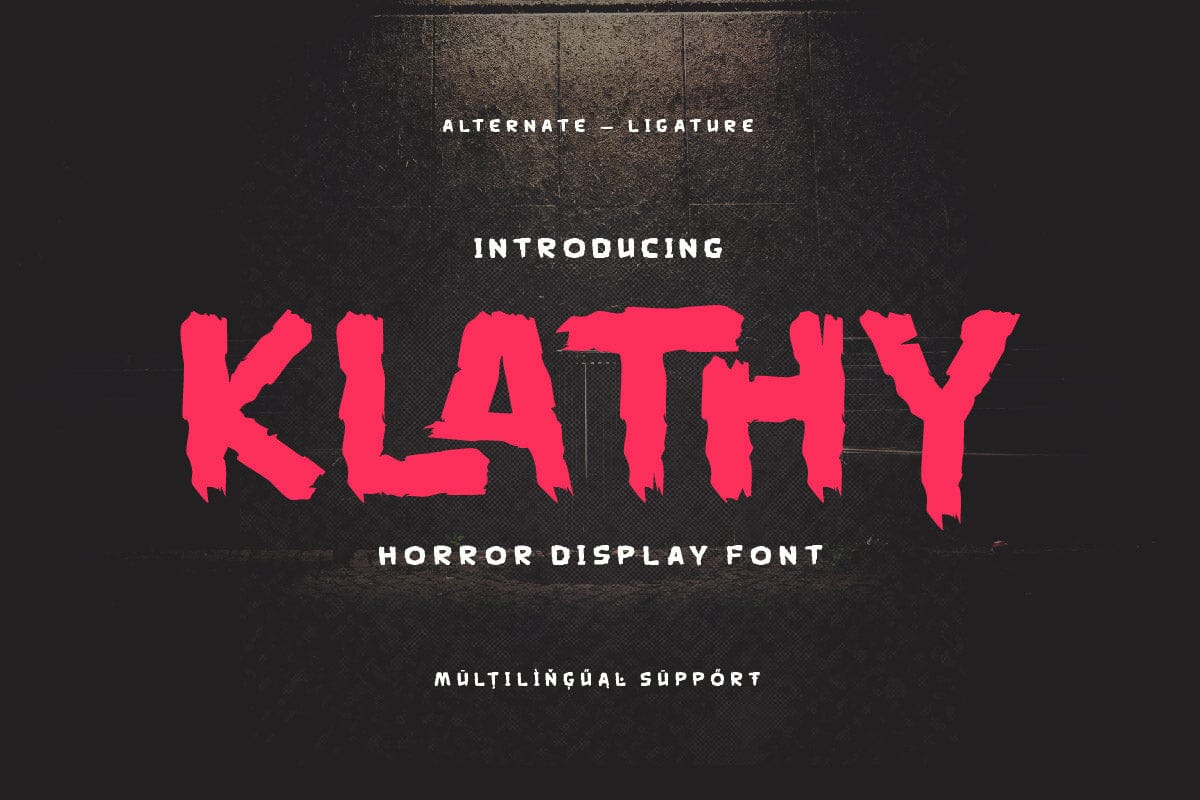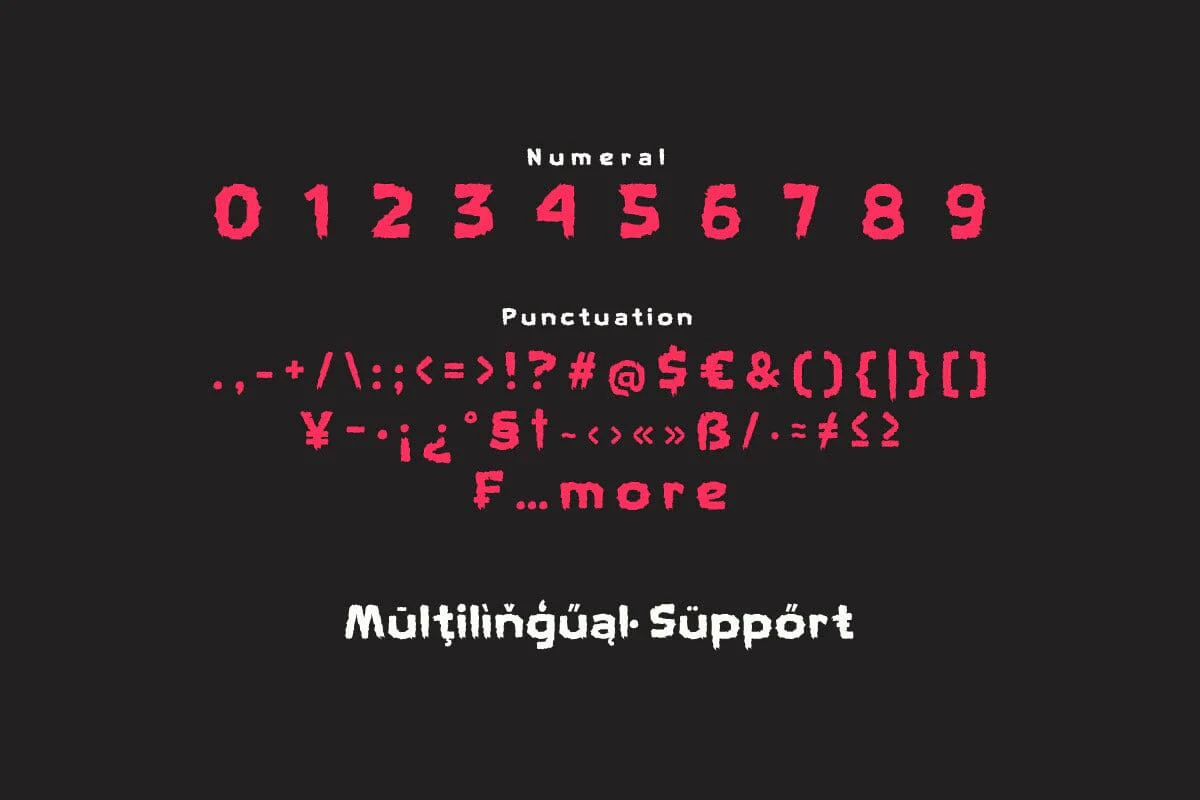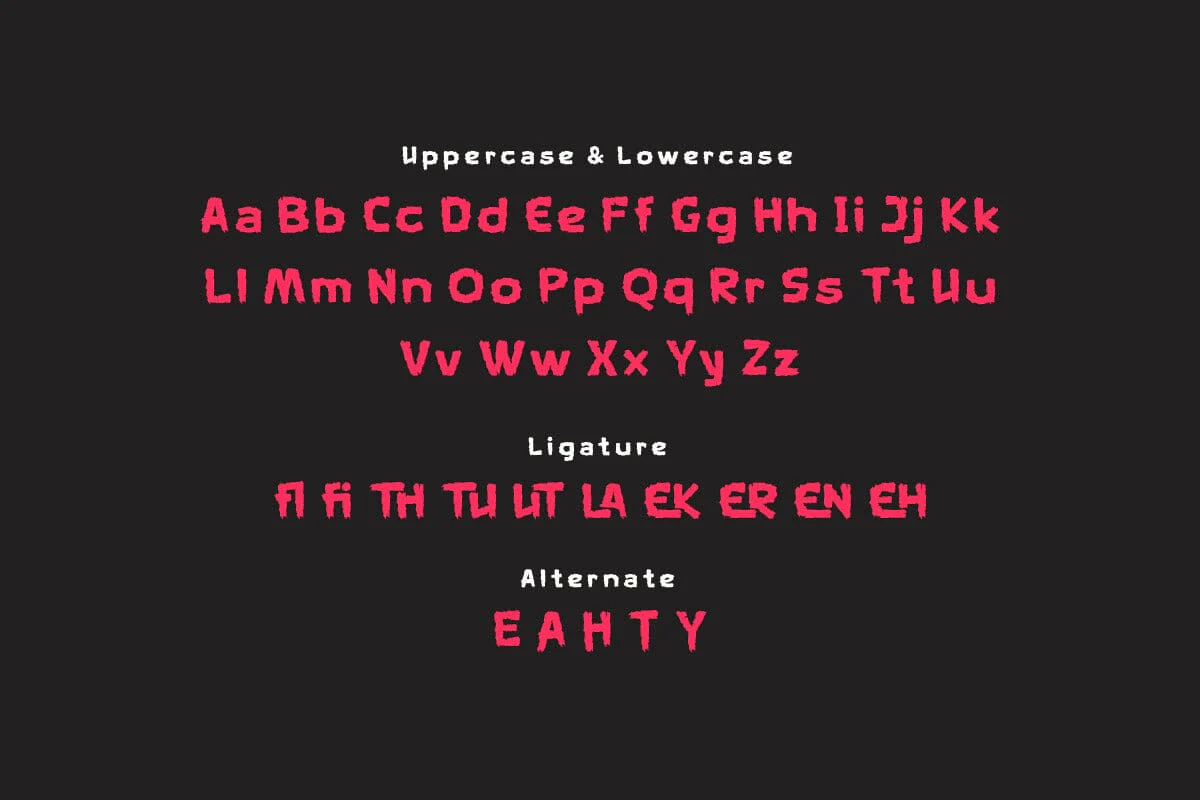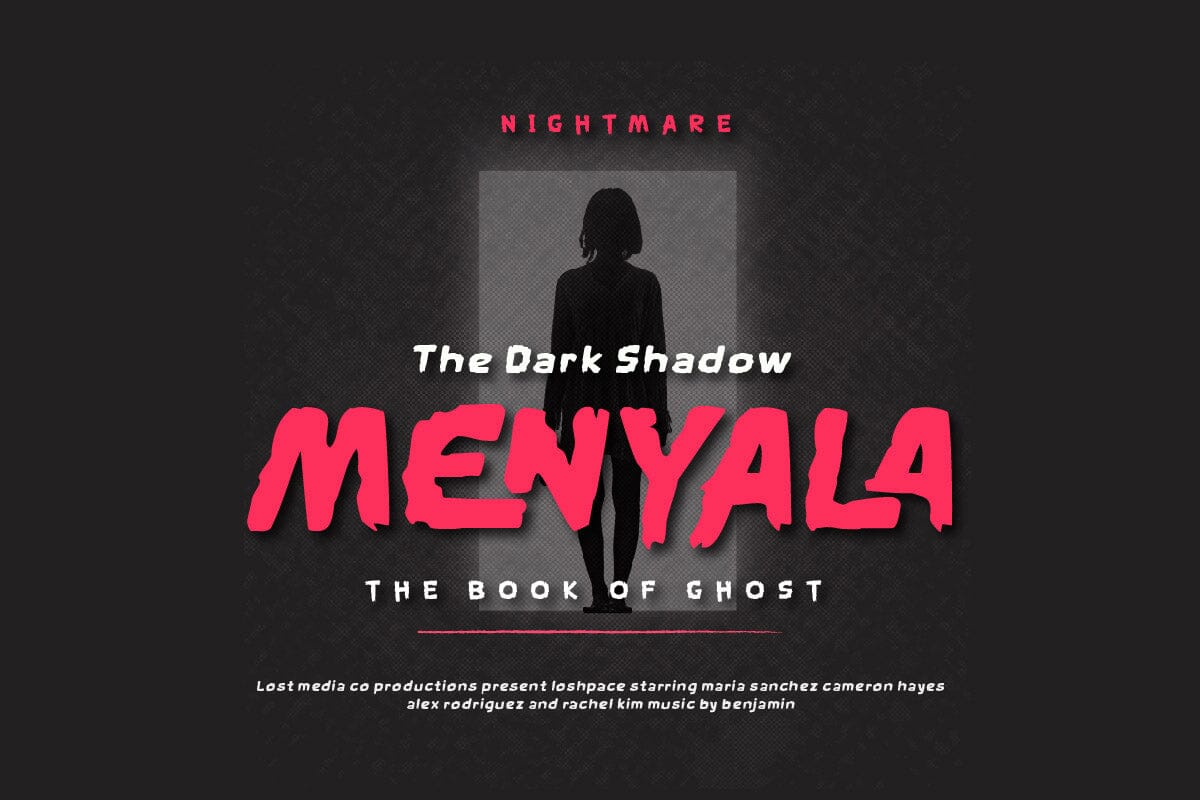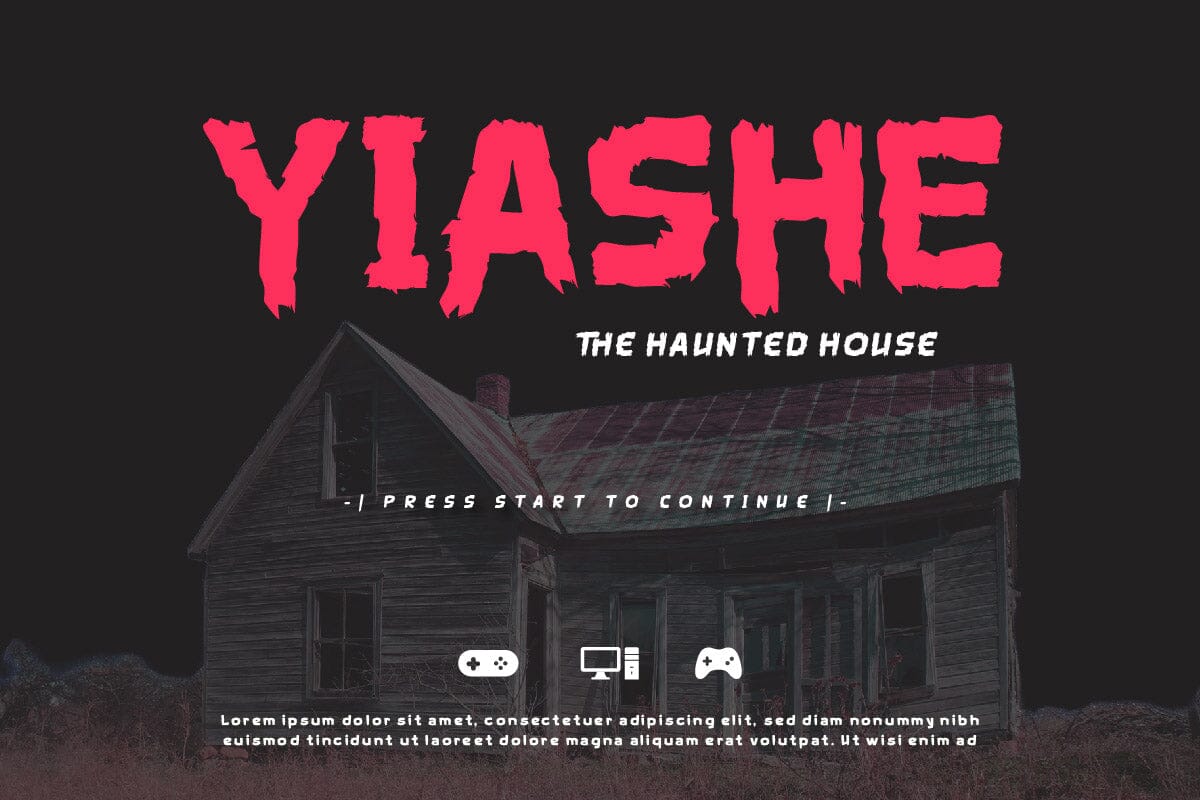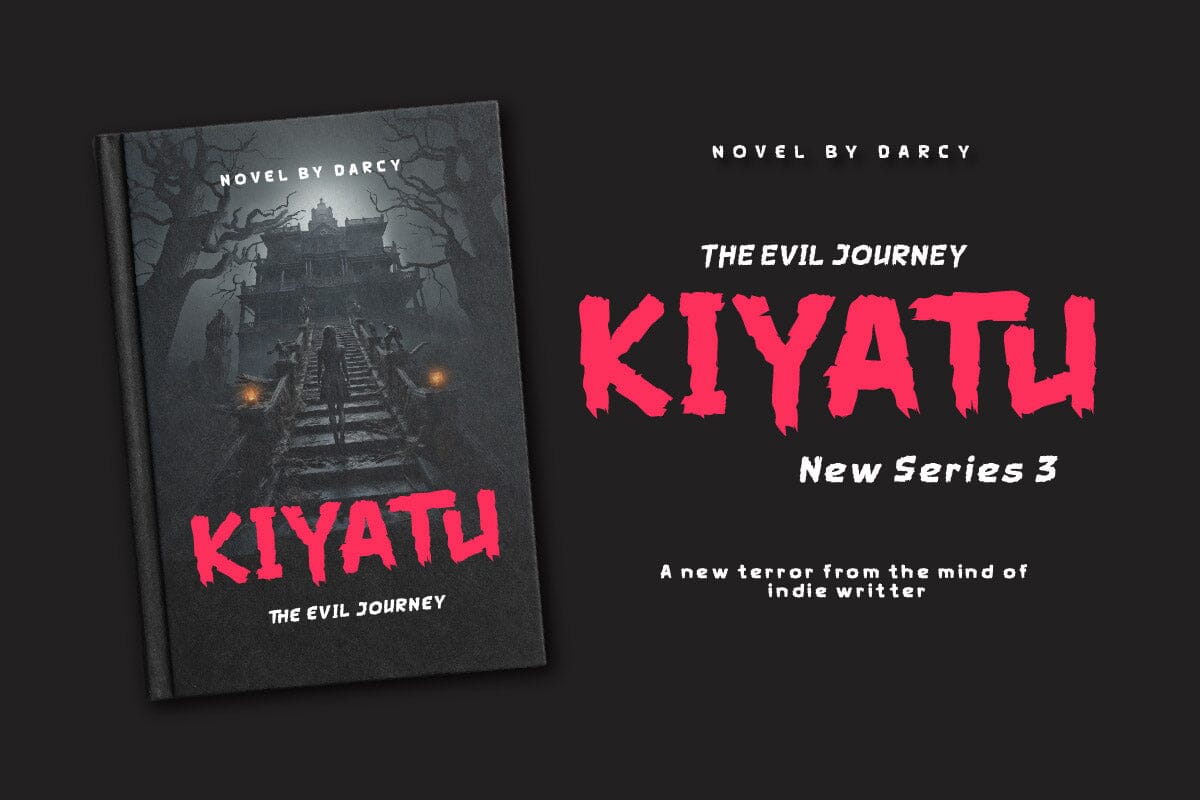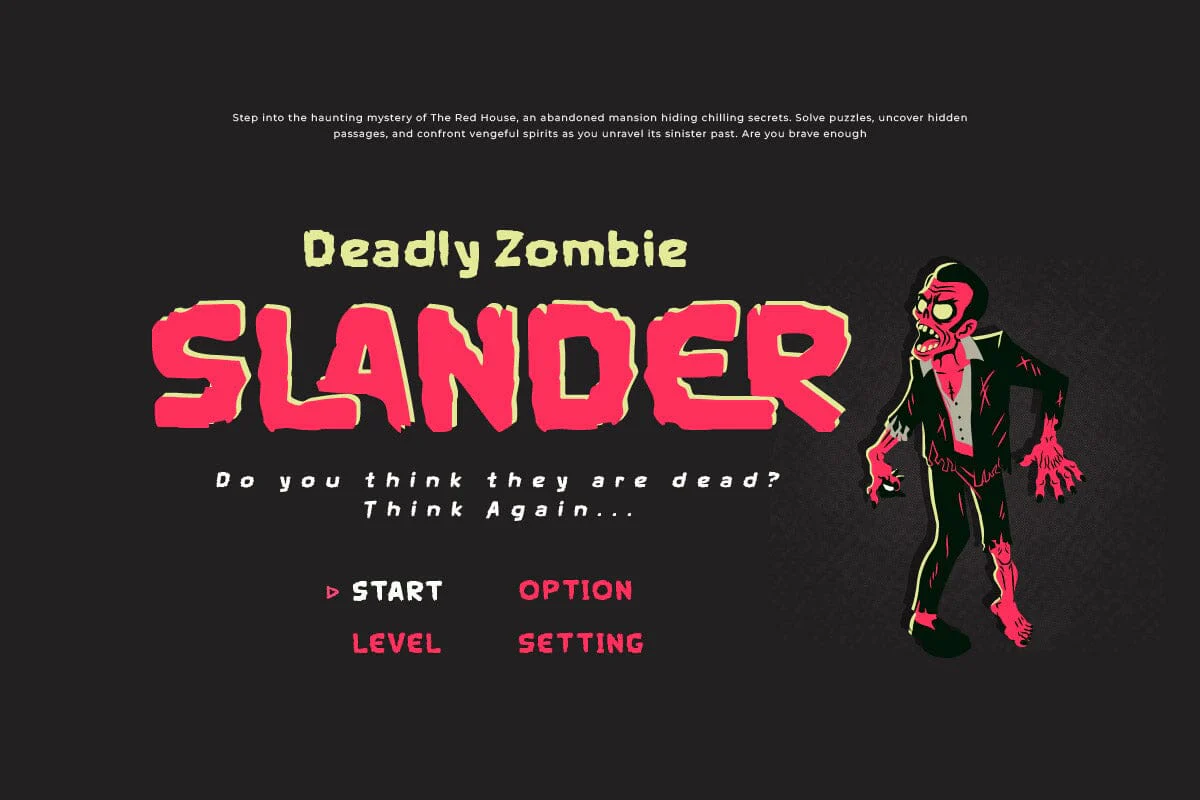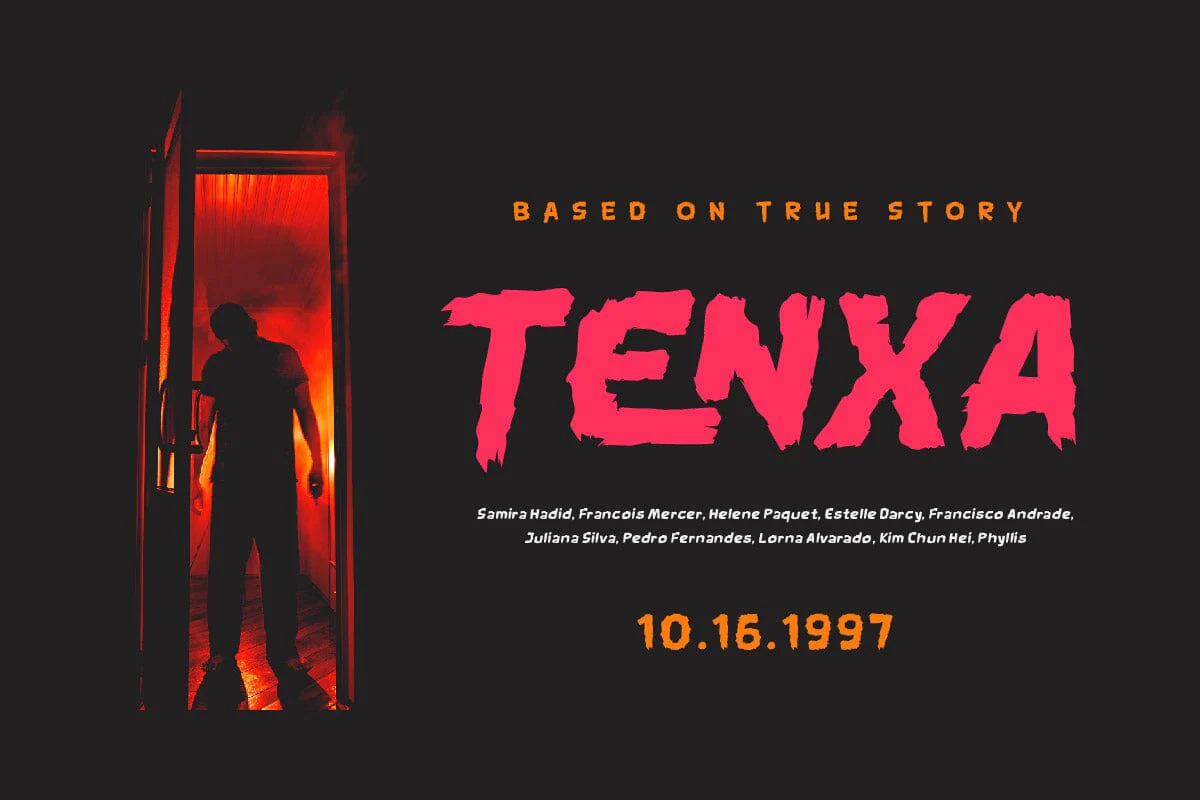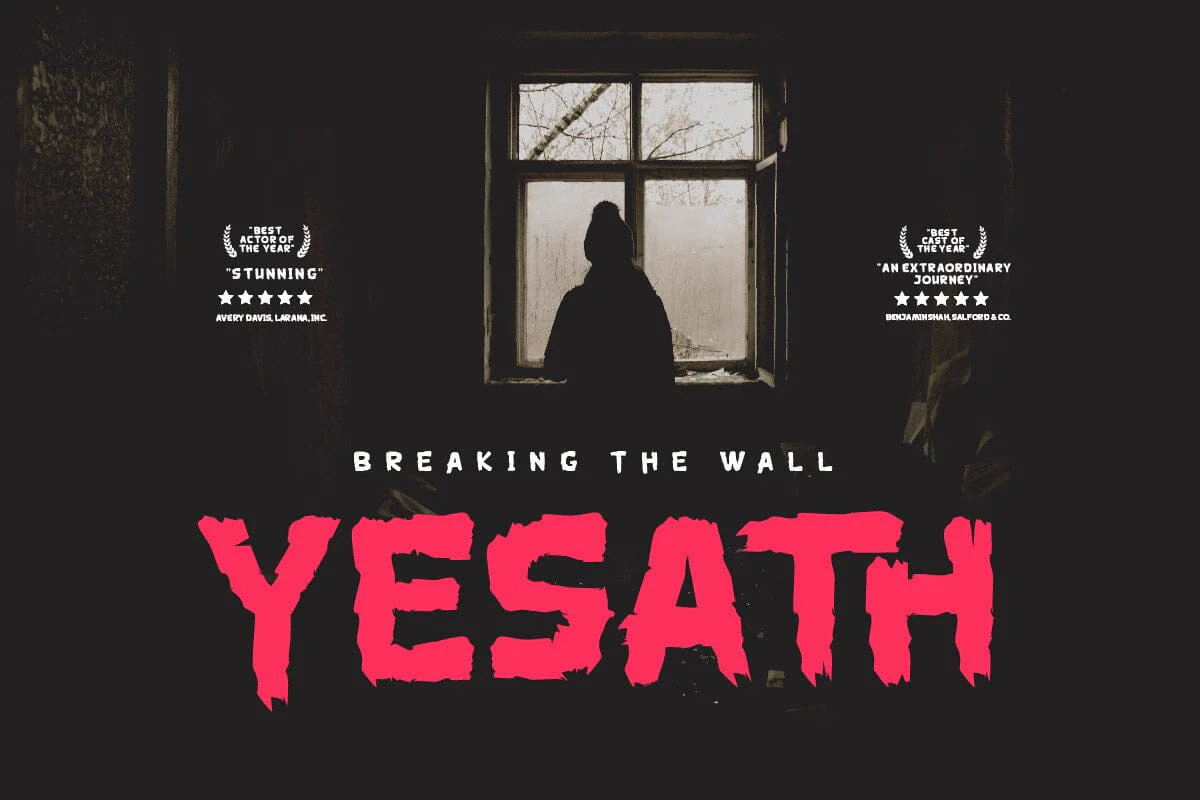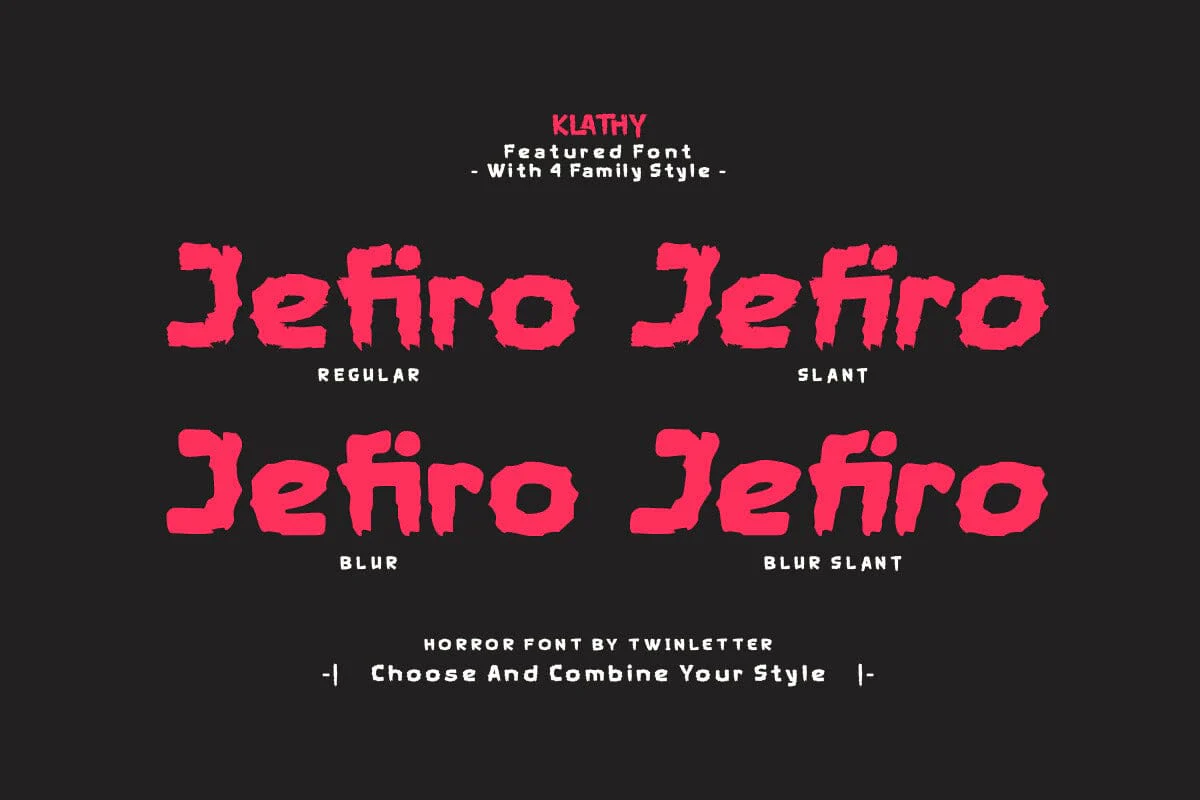
Klathy - Horror Display Font
Dare to be different with Klathy, a horror display font that’s sure to make a statement. Its jagged, irregular letterforms evoke a sense of fear and unease, making it the perfect choice for horror movie posters, book covers, and Halloween-themed designs. With Klathy, you can create designs that are not only visually striking, but also create an atmosphere of suspense and intrigue.